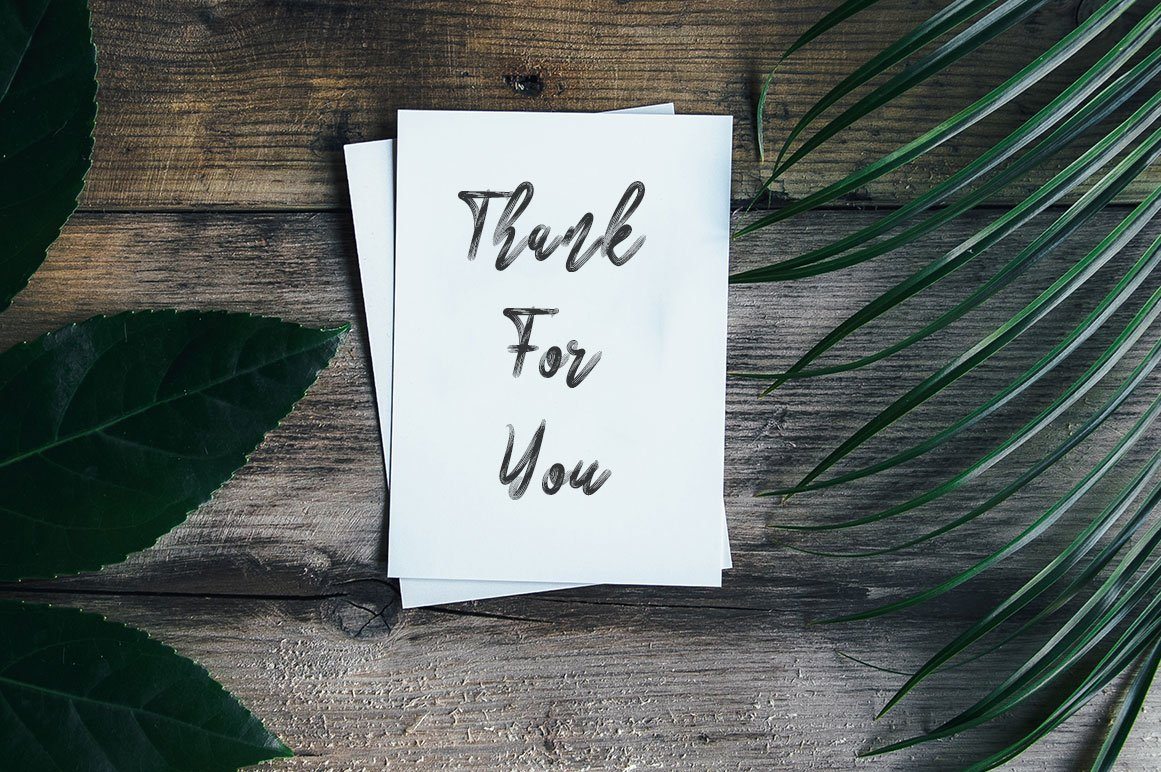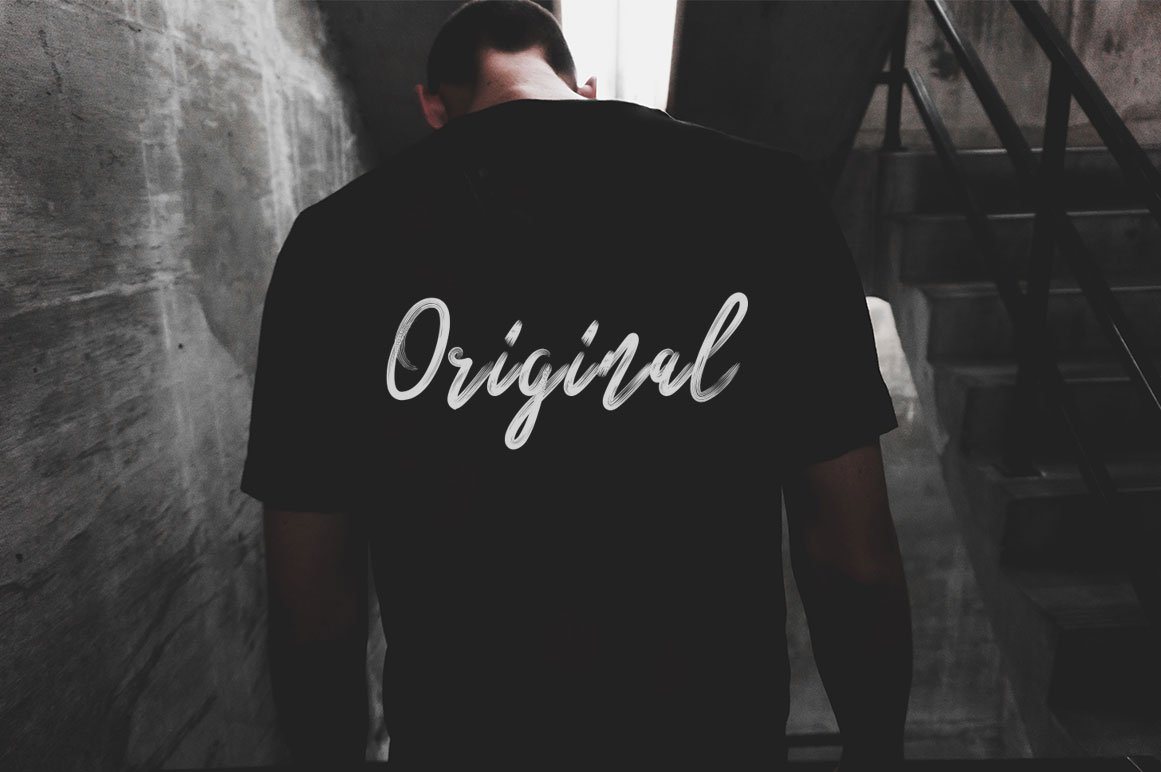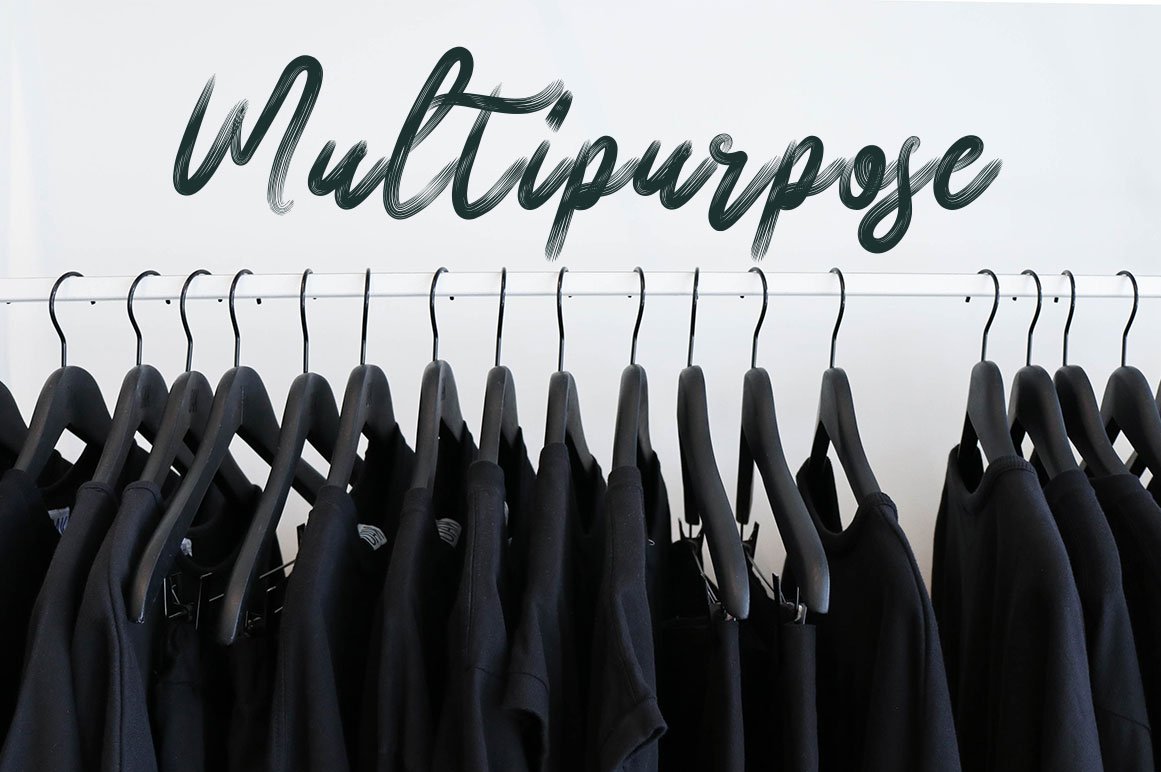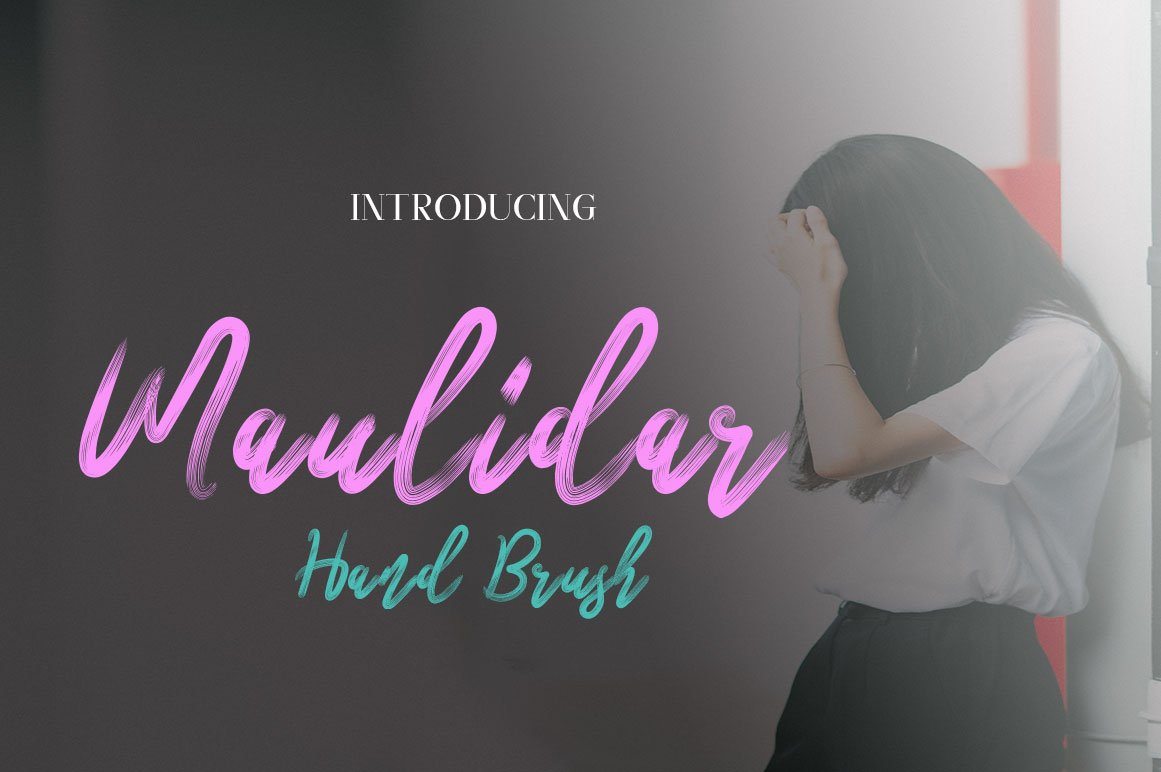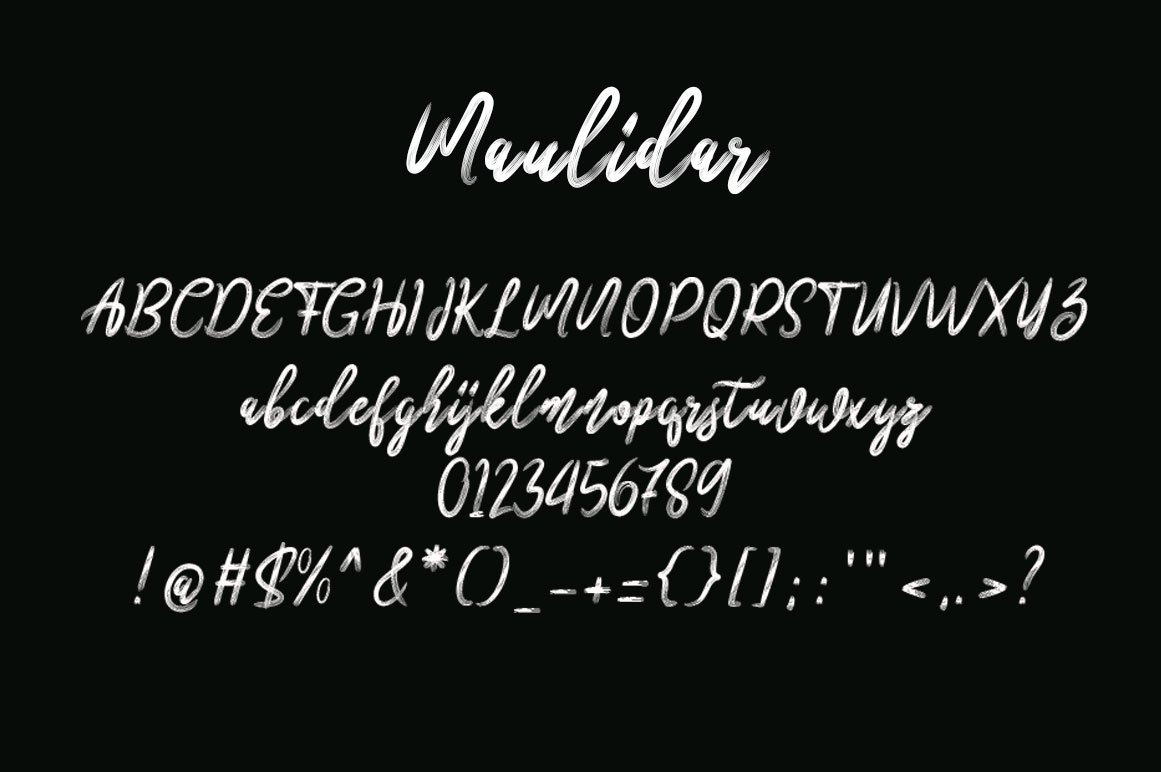
About Maulidar
Maulidar hand New fresh & modern style with handmade calligraphy, decorative characters and dancing lineage! So wonderful are invitations like greeting cards, branding material, business cards, quotes, posters, and more !! ZIP files include the following: Maulidar Script.OTF Maulidar Script.TTF If you do not have programs that support OpenType features like Adobe Illustrator and CorelDraw X Versions, you can access all alternative flying machines using Font Book (Mac) or Character Map (Windows). Maulidar hand New fresh & modern style with handmade calligraphy, decorative characters and dancing lineage! So wonderful are invitations like greeting cards, branding material, business cards, quotes, posters, and more !! ZIP files include the following: Maulidar Script.OTF Maulidar Script.TTF If you do not have programs that support OpenType features like Adobe Illustrator and CorelDraw X Versions, you can access all alternative flying machines using Font Book (Mac) or Character Map (Windows). Maulidar hand New fresh & modern style with handmade calligraphy, decorative characters and dancing lineage! So wonderful are invitations like greeting cards, branding material, business cards, quotes, posters, and more !! If you do not have programs that support OpenType features like Adobe Illustrator and CorelDraw X Versions, you can access all alternative flying machines using Font Book (Mac) or Character Map (Windows). Maulidar hand New fresh & modern style with handmade calligraphy, decorative characters and dancing lineage! So wonderful are invitations like greeting cards, branding material, business cards, quotes, posters, and more !! If you do not have programs that support OpenType features like Adobe Illustrator and CorelDraw X Versions, you can access all alternative flying machines using Font Book (Mac) or Character Map (Windows). Maulidar hand New fresh & modern style with handmade calligraphy, decorative characters and dancing lineage! So wonderful are invitations like greeting cards, branding material, business cards, quotes, posters, and more !!